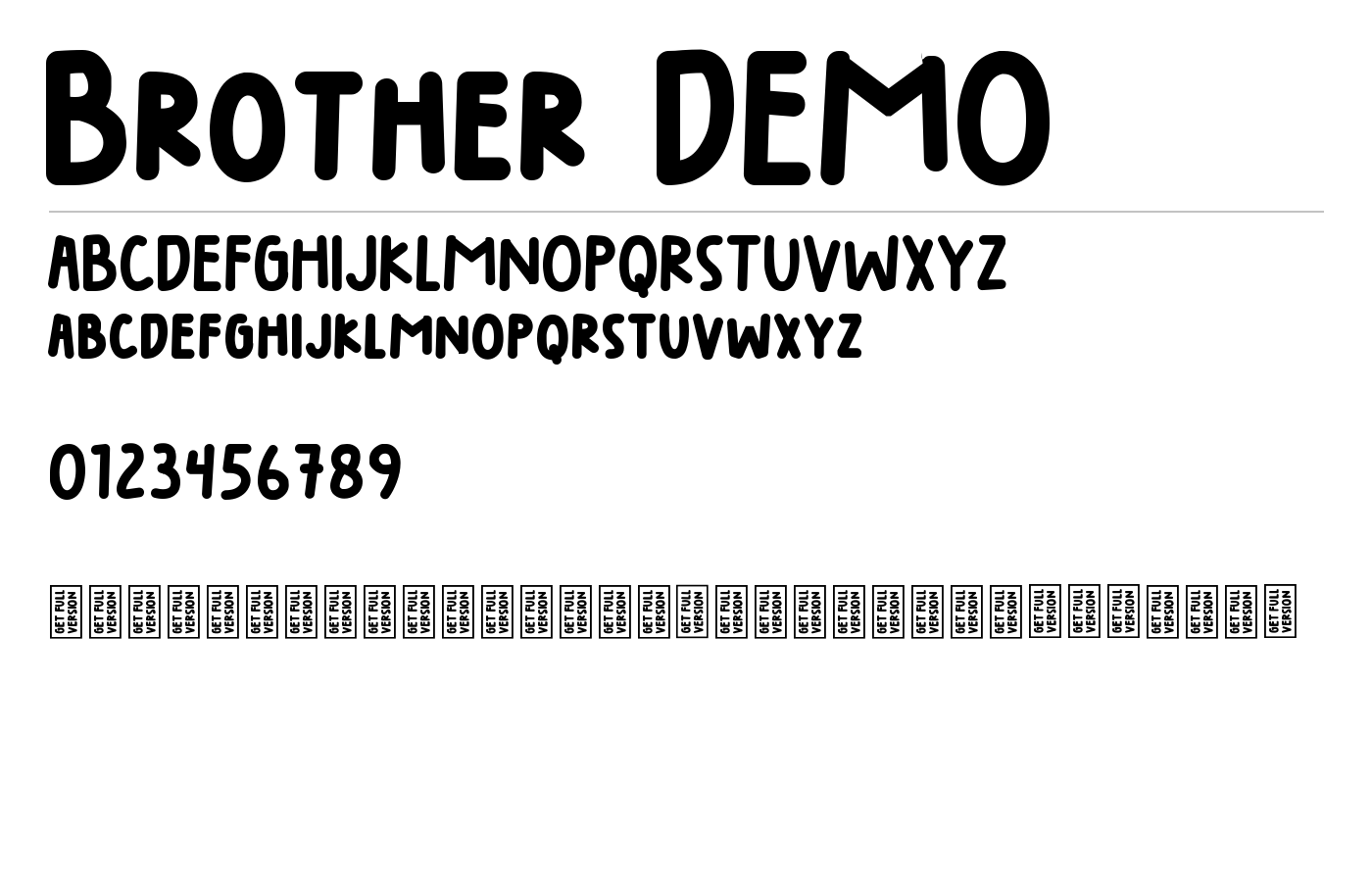
Brother DEMO is a playful and casual sans serif font with a hand-drawn feel, featuring rounded strokes and a slightly irregular structure that adds warmth and personality. Its tall x-height and clear, bold shapes make it highly readable, perfect for informal branding, children’s materials, and fun editorial projects. This font works best in headlines or display uses where a friendly and approachable tone is desired.
Brother DEMO Font
About Brother DEMO Font